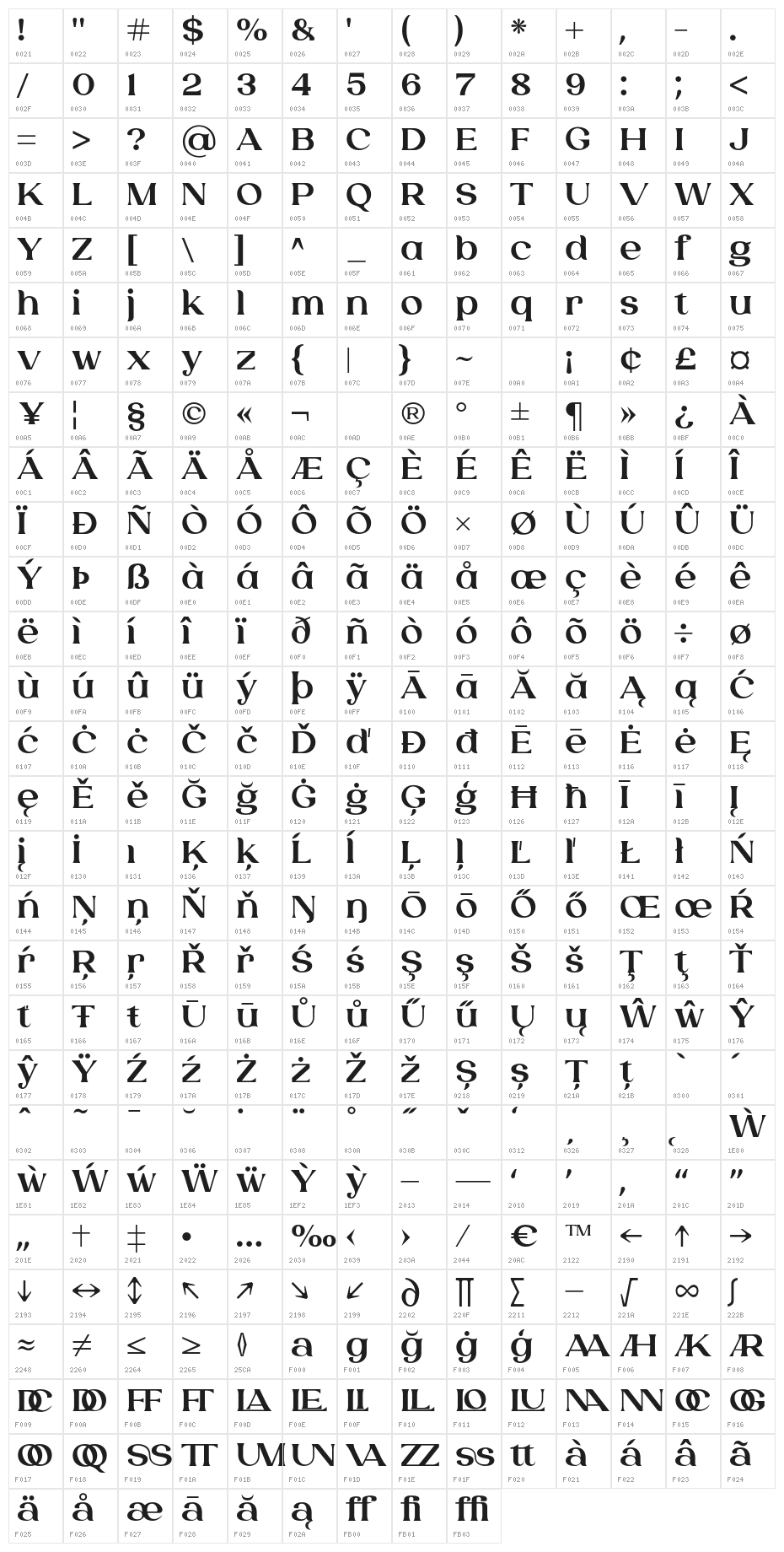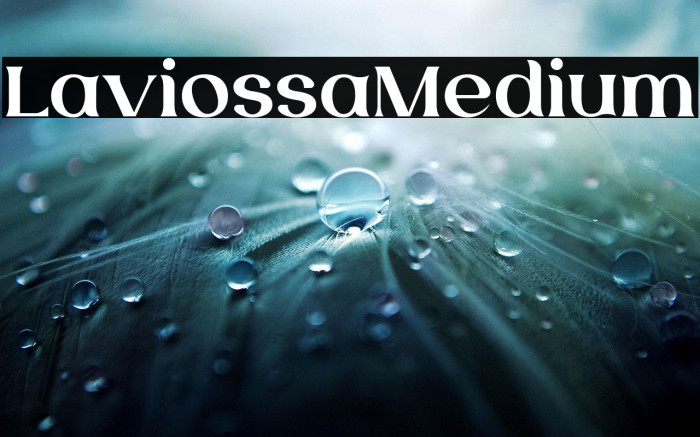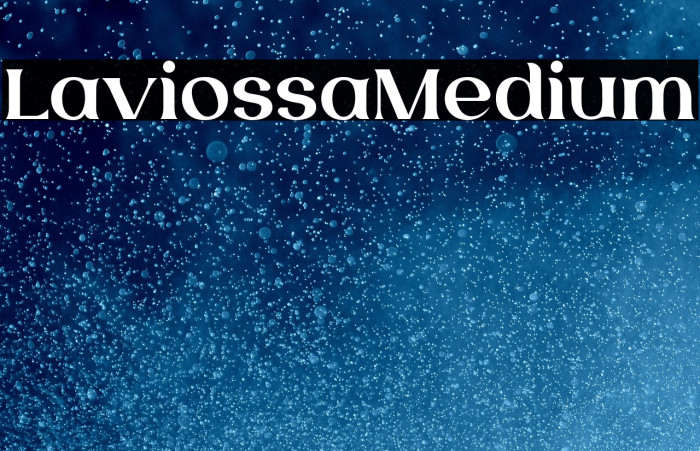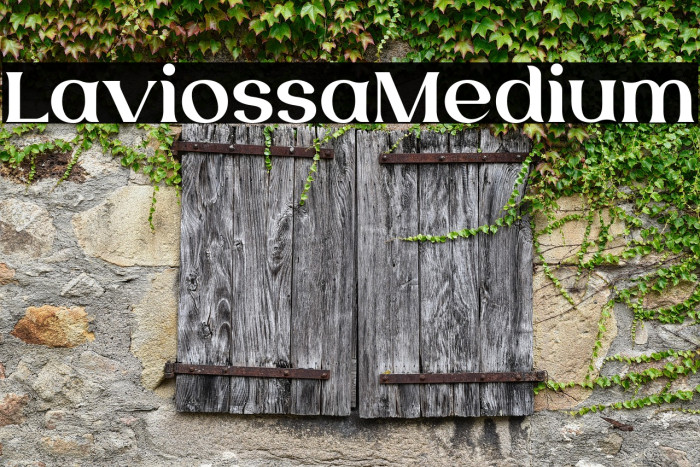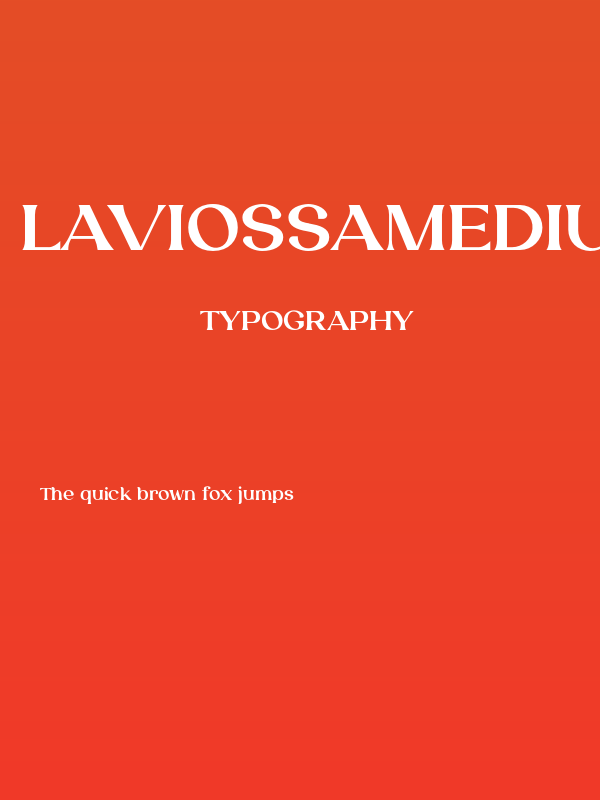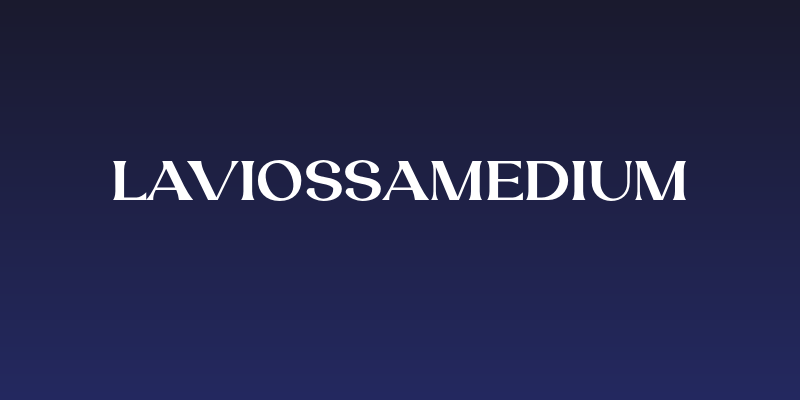
LaviossaMedium Font
LaviossaMedium Description
This font exhibits a classic serif style with a modern twist, characterized by its elegant and slightly curved serifs. The uppercase letters are bold and commanding, while the lowercase letters maintain a consistent and harmonious flow. The numerals are well-proportioned, ensuring readability. Special characters are crafted with attention to detail, adding a touch of sophistication. The overall design is versatile, suitable for both digital and print media, offering a timeless appeal that can enhance various design projects.
Overall StyleClassic
Proposed ProjectsIdeal for editorial design, book covers, branding projects, and elegant invitations.